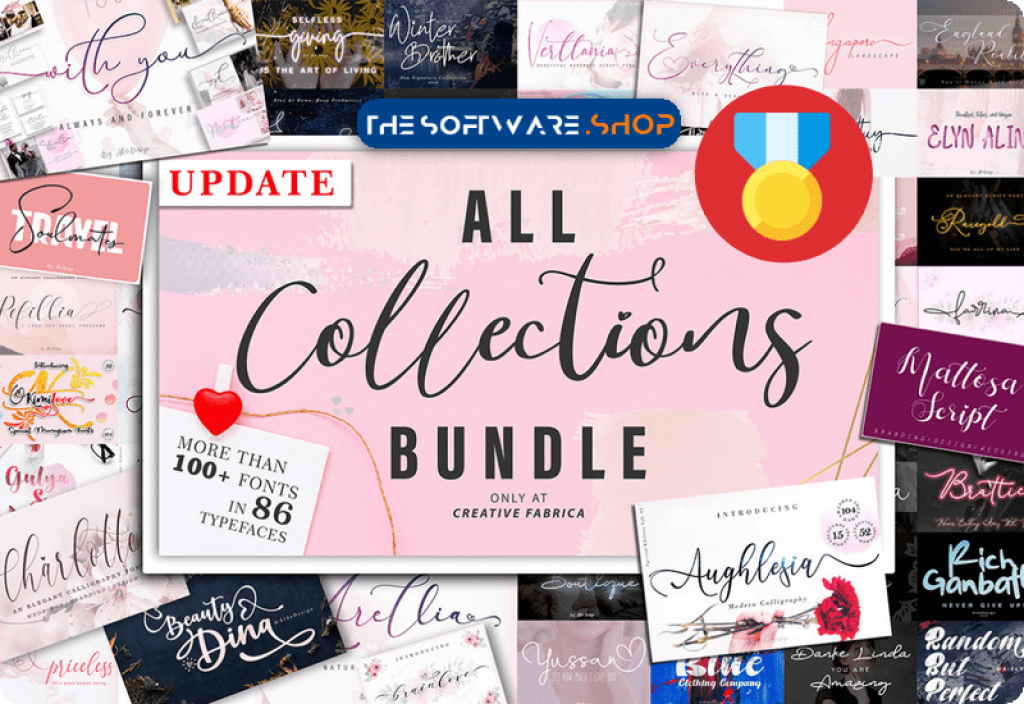
Fonts are an important part of design, and designers can never have too many fonts. Alde Design is presenting you All Collections – Font Bundle with 90 premium fonts that includes various classifications of typefaces like calligraphy, handwritten, signature, script, brush, display.
- Jean Jingga
- Travel Soulmates Duo
- Charlotte Calligraphy
- Break Walkout
- Anything Script
- Birmingham
- With You
- Beauty Dina
- Stenciland
- Beckman Demons
- Everything
- Arellia
- Srikonitta
- Emmanuela
- Arrafah
- Singapore Landscape
- Blackball
- Better Caller
- The Attention
- England Reality
- Mowllnew
- Melamar
- Bendina Sambat
- Pink Script
- Farrina
- Baropetha Family
- Dialova
- Ma Fille
- Barista Script
- Chicago Rockers
- Enthusiast Behavior
- Butter Mellow
- Annisa
- Elyn Alina
- Banggar
- Brainlove Script
- Chapter Eight
- Babes & Bridal
- Faradilla Script
- Brattica Script
- Wisdom Merry
- Jonas Beckman
- Baleria
- Landing Surely
- Yussan Script
- Long Days
- Ectomorph
- Behavior Indihome
- Winter Brother
- Choco & Chips
- Kimilove
- Darling Suttine
- Evallia
- Malibbie
- Gulya Script
- Marrisa Script
- Ubur-Ubur
- Parallove
- Latter Slant
- North Blue
- Billortte
- Good Egg
- Aughlesia
- South Walles
- Rich Ganbatte
- Magnificent
- Wanted Signature
- Riding Monday
- Vanilla Mermaid Script
- Potter Alaska
- Mollaroid
- Monster Demit
- Painted
- Random but Perfect
- Letternisa Script
- Giving Script
- Bhutan
- Jasper Kusack
- Beauty Boutique
- Anggelica Merona
- Mattosa Script
- Magic Anomali
- Vonday
- Refillia Calligraphy
- Weekdays Santtuy
- Danke Linda
- Asgard
- Landmark
- Dinila
- Raregold
You can use these fonts installed on PC/Mac on any project that needs a font with a natural or elegant style. These would be great for logos, t-shirt design, invitation cards, branding projects, etcetera. They make your designs look natural and elegant!